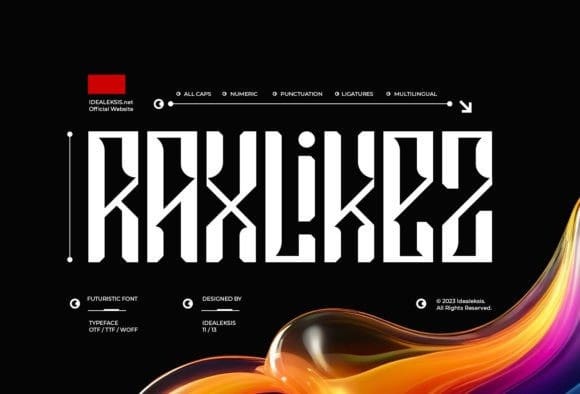
Raxlikez Display Font
Raxlikez Display Font, a cutting-edge font that seamlessly blends futuristic elegance with the dynamic energy of sports. This typographic masterpiece is a visual symphony of sleek lines, sharp angles, and a modern aesthetic that sets it apart in the world of fonts.